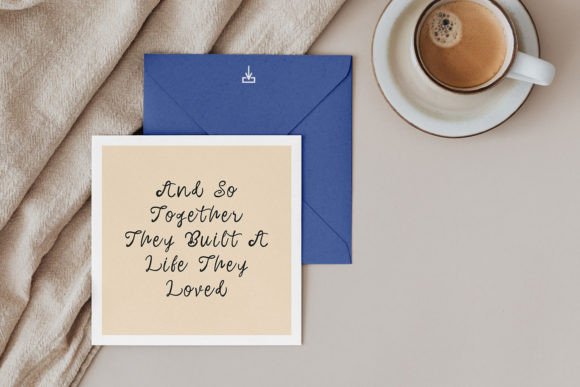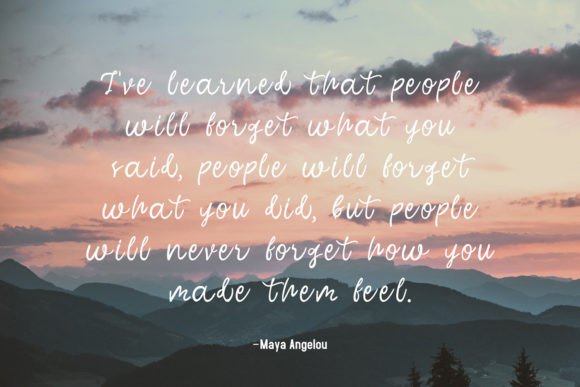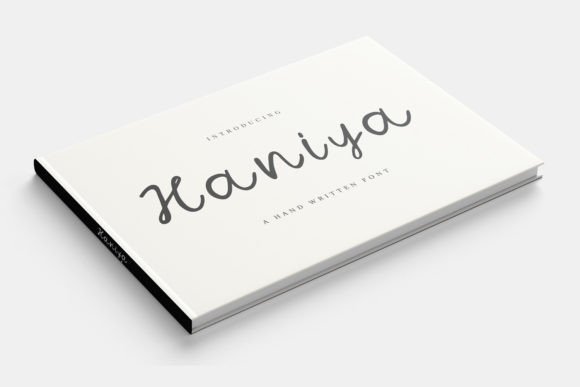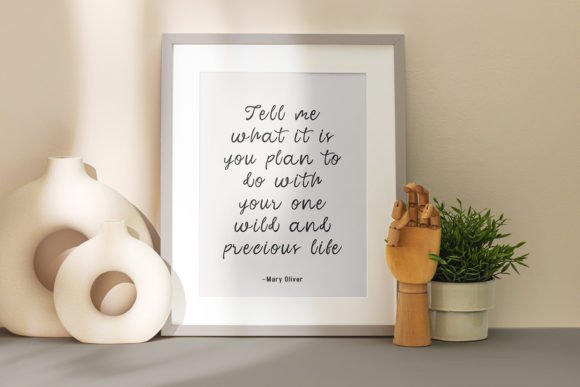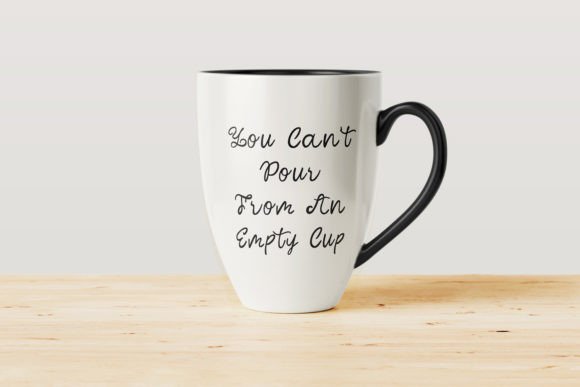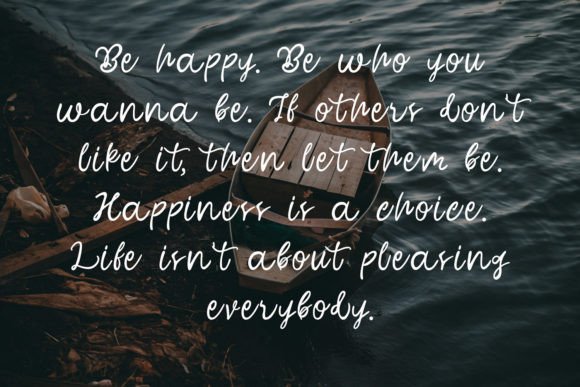
Introduction to Haniya Font
Haniya Handmade Font is a natural and graceful script font with a beautiful rhythm that will help you create wonderful and classy compositions.
It contains uppercase letters, lowercase letters, numbers, punctuation, and symbols and supports multilingualism Haniya font is excellent for various tasks such as packaging, presentations, logos, headlines, lettering, posters, branding, quotes, titles, magazine, headings, web layouts, advertising, invitations, packaging design, books, and almost any creative design.
Key Features of Haniya Font